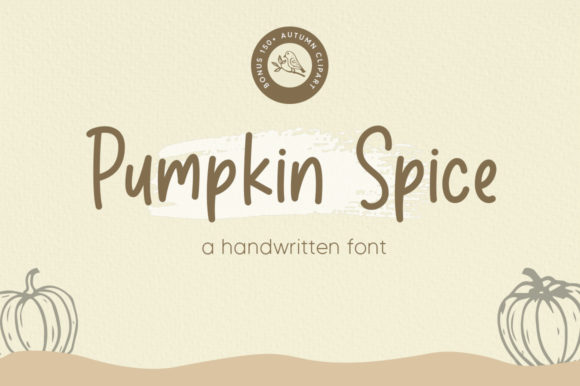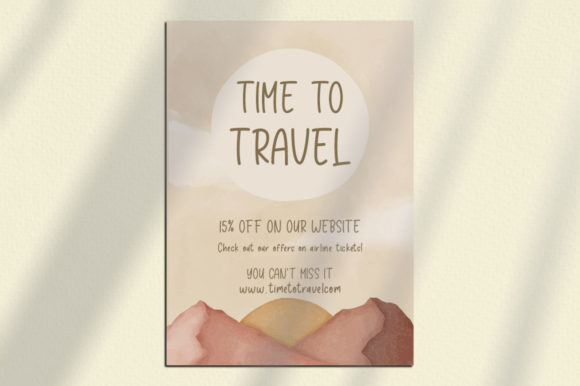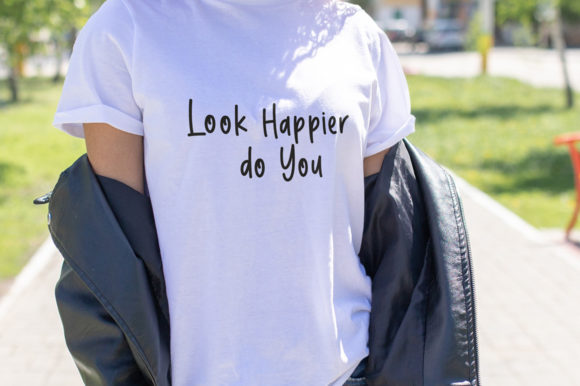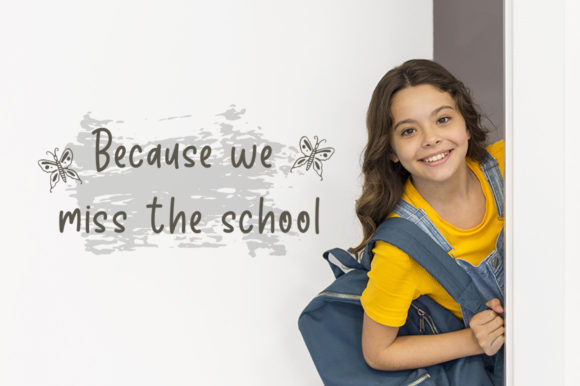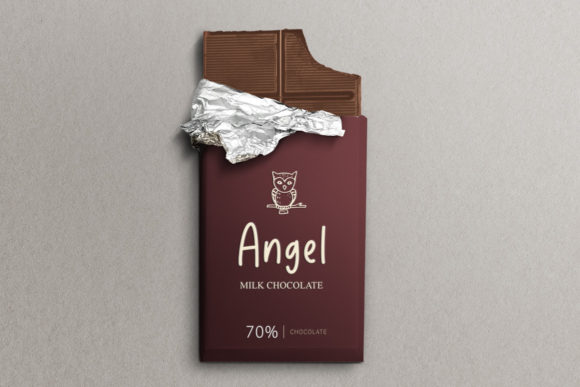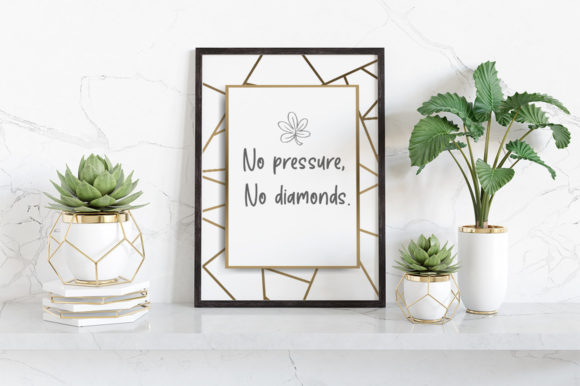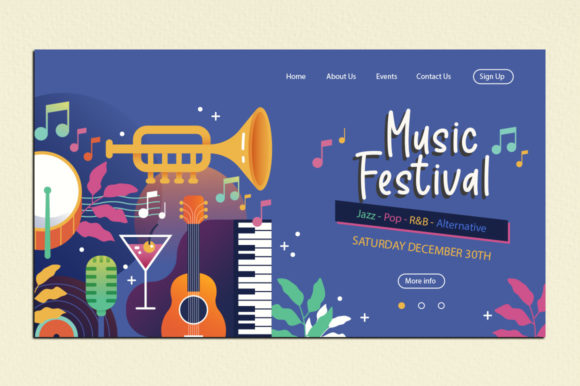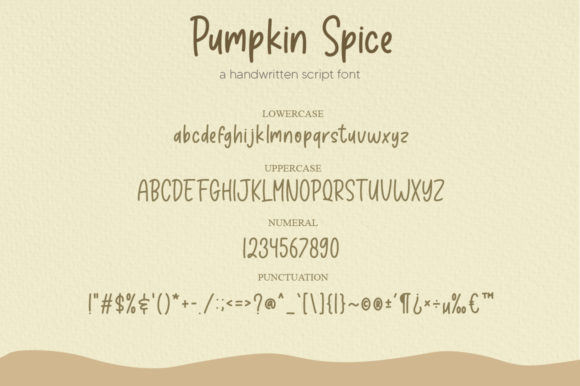
Pumpkin Spice Font
About Pumpkin Spice Font
Pumpkin Spice is a cute and playful handwritten font. No matter the topic, this font will be a lovely asset to your fonts’ library, as it has the potential to elevate any creation.